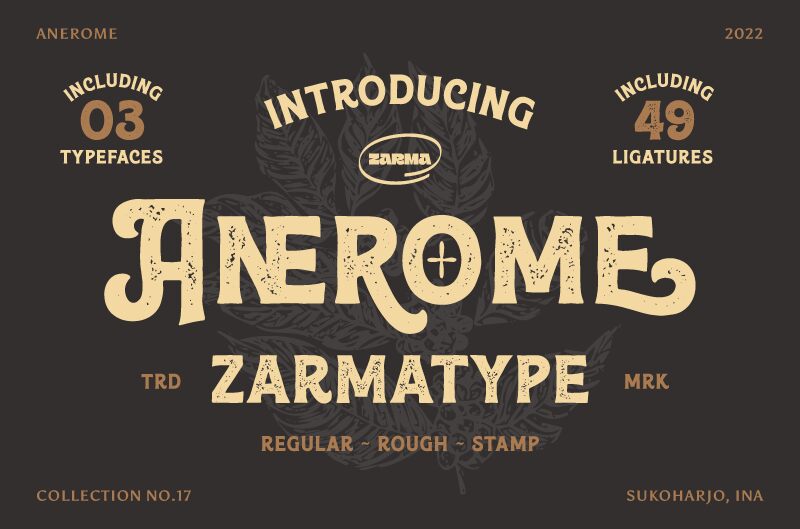
Anerome Stamped, a bold and distinctive font crafted by the Zarma Type Foundry, exudes a captivating sense of weathered elegance. With its eroded, stamped aesthetic, this display font commands attention, evoking a raw, industrial charm that can elevate a wide range of design projects.
Anerome Stamped's strong, bold strokes and textured appearance lend it a sense of rugged resilience, making it an impactful choice for headlines, logos, and branding applications. Its unique character and visual impact make it a versatile tool for designers seeking to create a striking, memorable impact, whether in print, digital, or environmental design contexts.
Anerome Stamped